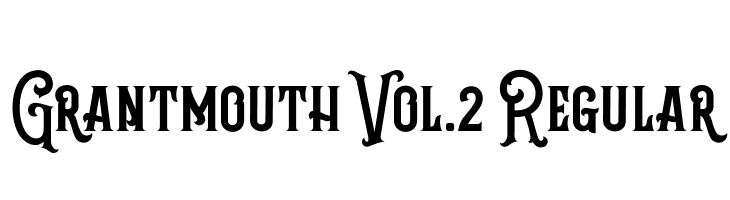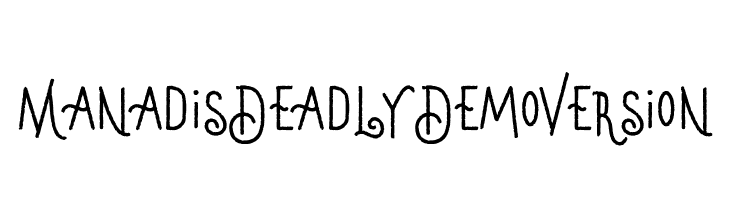
A bold, decorative font with vintage flair and intricate details.
A playful handwritten font with a lively and casual style.
A bold, dynamic font with a modern, slanted design.
A bold, heavy italic font with a dynamic and modern style.
A bold, geometric font with strong, impactful letterforms.
A bold, impactful font with thick strokes and high legibility, enclosed in squares.
A whimsical and decorative font with curly, hand-drawn elements.
A bold, dripping font with an eerie, fluid appearance.
An elegant, cursive font with decorative swashes and flourishes.
A bold, distressed font with a textured, vintage appearance.